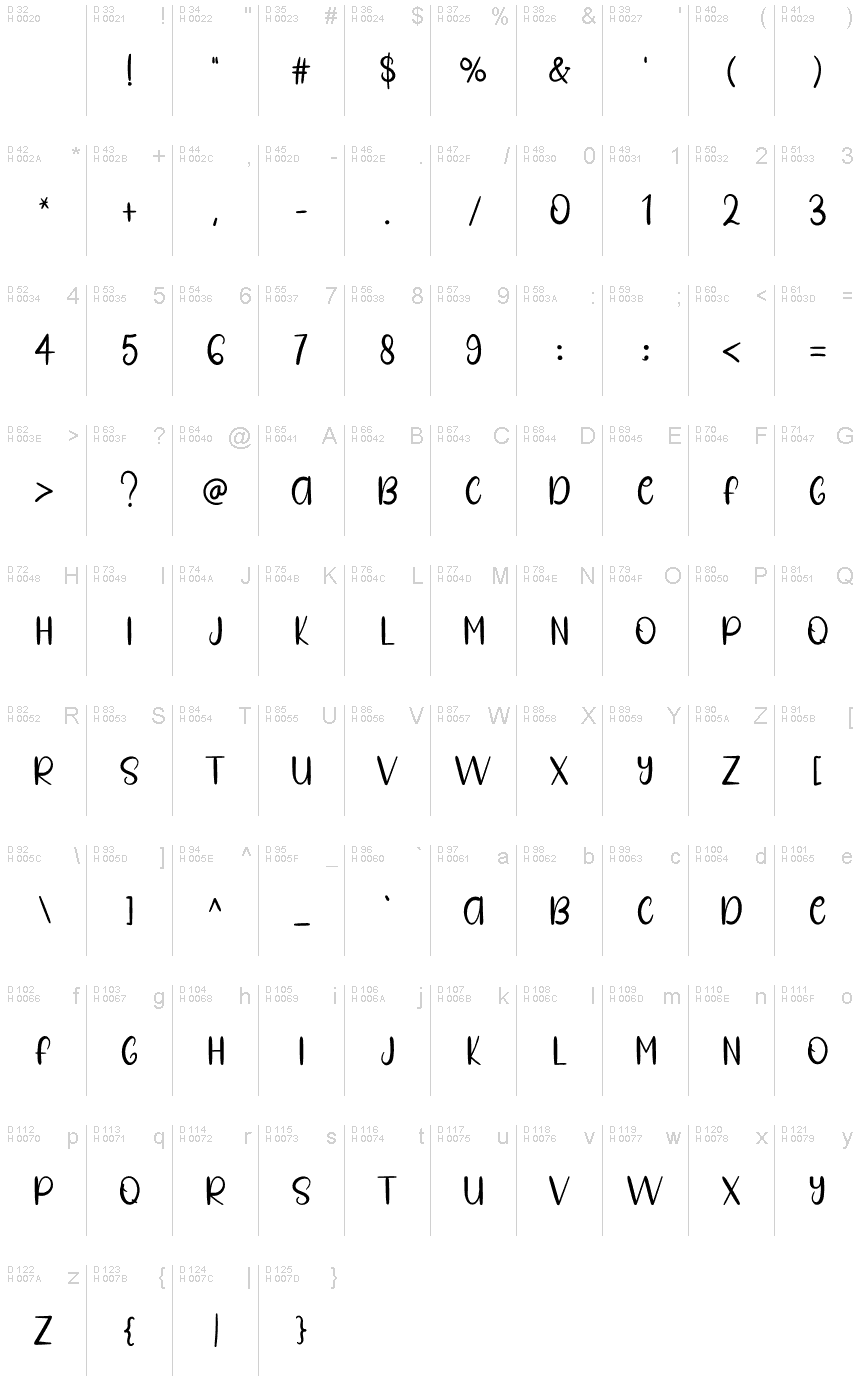
Fried Chicken
Fried Chicken, the latest creation from Belina Studio, is a semi-light handwritten font that will add a touch of whimsy and personality to any project. With its playful curves and loops, this font is perfect for greeting cards, invitations, and branding materials for cafes or restaurants. The semi-light weight makes it ideal for body text in print or digital media while maintaining readability. From food blogs to fashion magazines, Fried Chicken will add a unique touch to your project and make it stand out from the rest. So why not give Fried Chicken a try and see how it can elevate your designs?
the latest style letters are perfect for wall displays, wedding invitations, social media post logos, advertisements, product packaging, product designs, labels, photography, watermarks, invitations, stationery, and any project that requires taste handwriting.